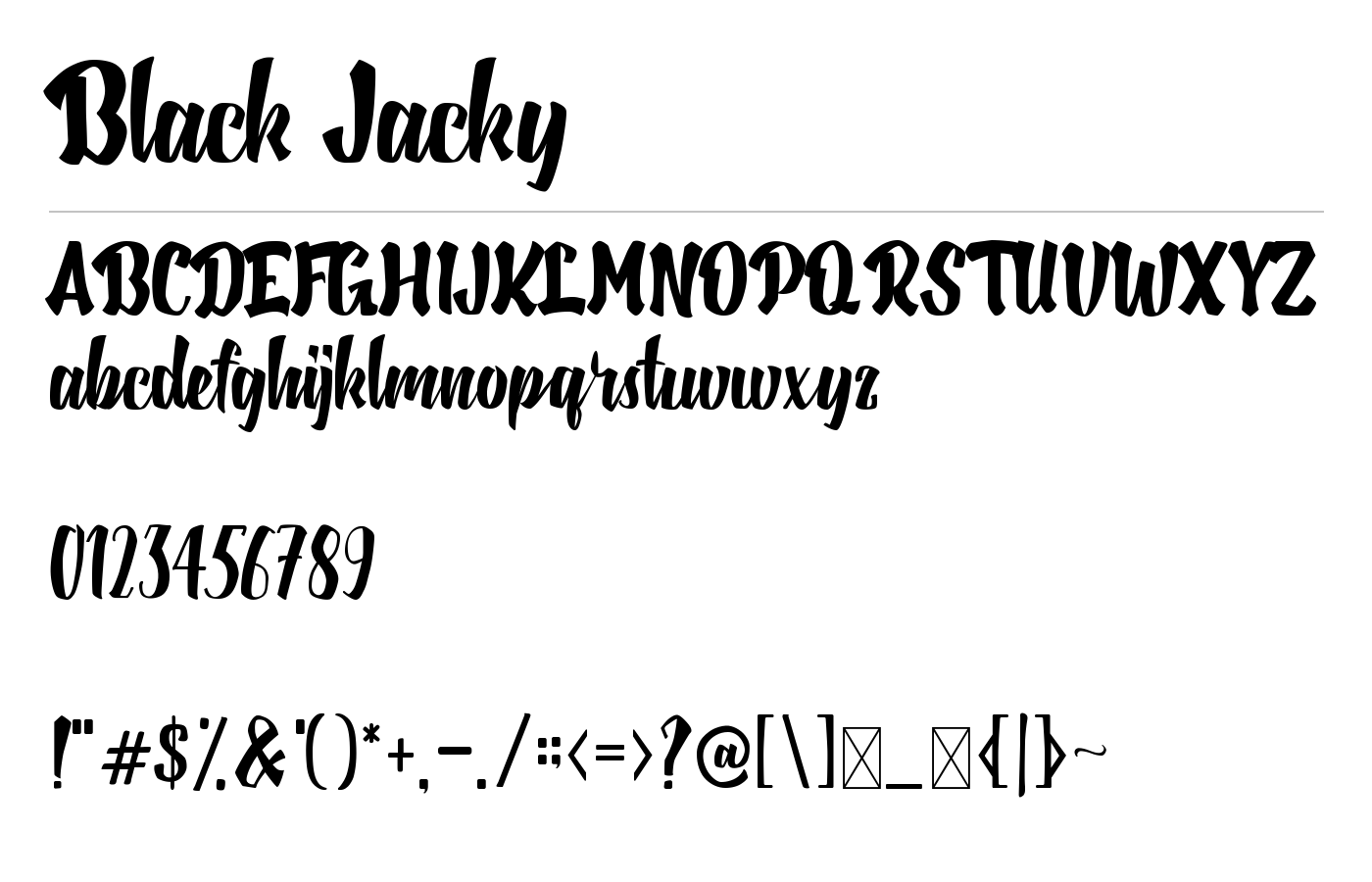
Black Jacky is a bold, brush-style script font with a lively, handcrafted feel. Its strong, slightly condensed letterforms and smooth, flowing strokes make it perfect for conveying personality and energy, ideal for creative logos, posters, and branding projects that want to stand out with a friendly yet confident voice. This font works best in display settings where its unique charm and expressive style can shine.
Black Jacky Font
About Black Jacky Font
| Font family | Black Jacky Font |
| Designer | Ikrar Bey Khubaib |
| Trademark | Ibey Design ™ |